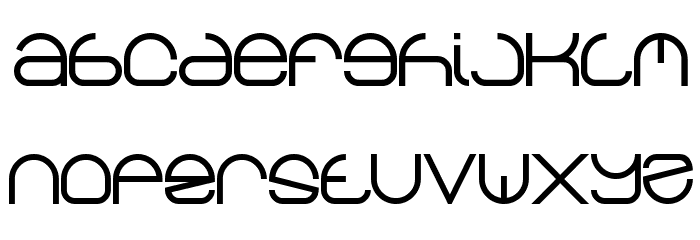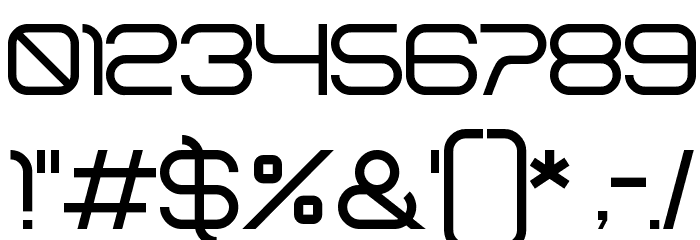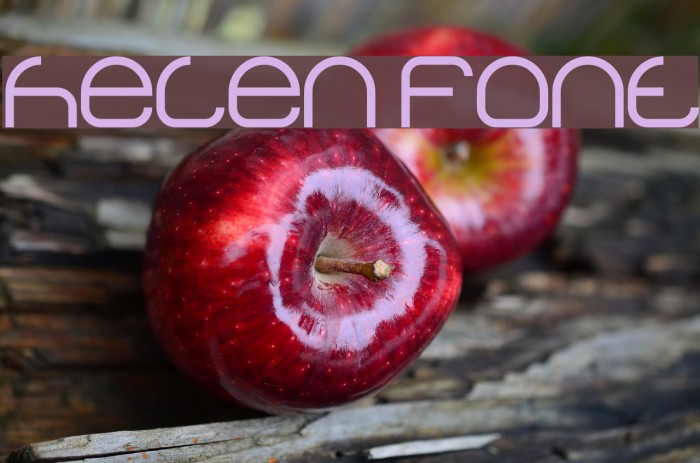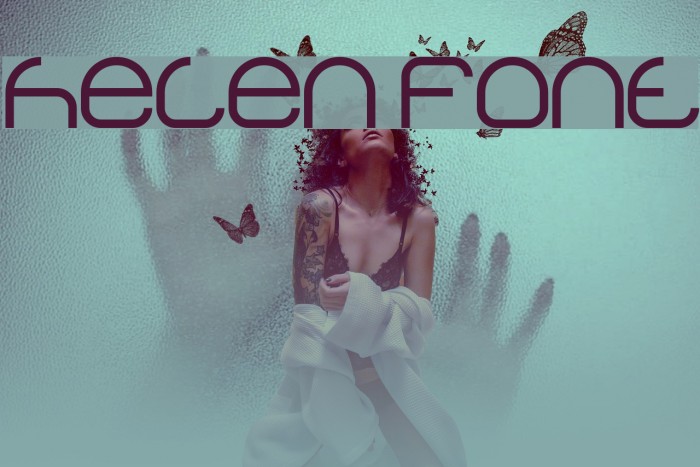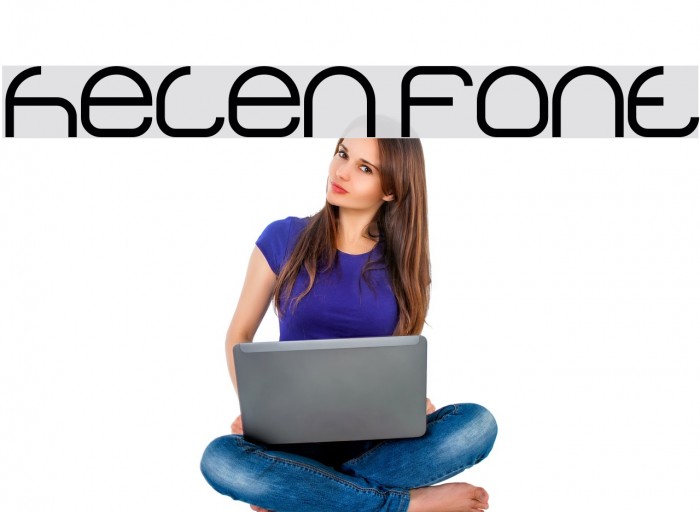
helen Font
This font features a futuristic and geometric design with a distinctively modern aesthetic. The characters are composed of clean lines and rounded edges, creating a sleek and streamlined appearance. The uppercase and lowercase letters maintain a consistent style, with a focus on symmetry and balance. The numerals and special characters follow the same design principles, ensuring a cohesive look across all glyphs. This font is ideal for projects that require a contemporary and innovative feel, such as technology branding, digital interfaces, and modern advertising.
A futuristic and geometric font with clean lines and rounded edges.
- Proposed Projects: Ideal for technology branding, digital interfaces, modern advertising, and innovative design projects.
- Use Case: Headlines, Logos, Digital Interfaces